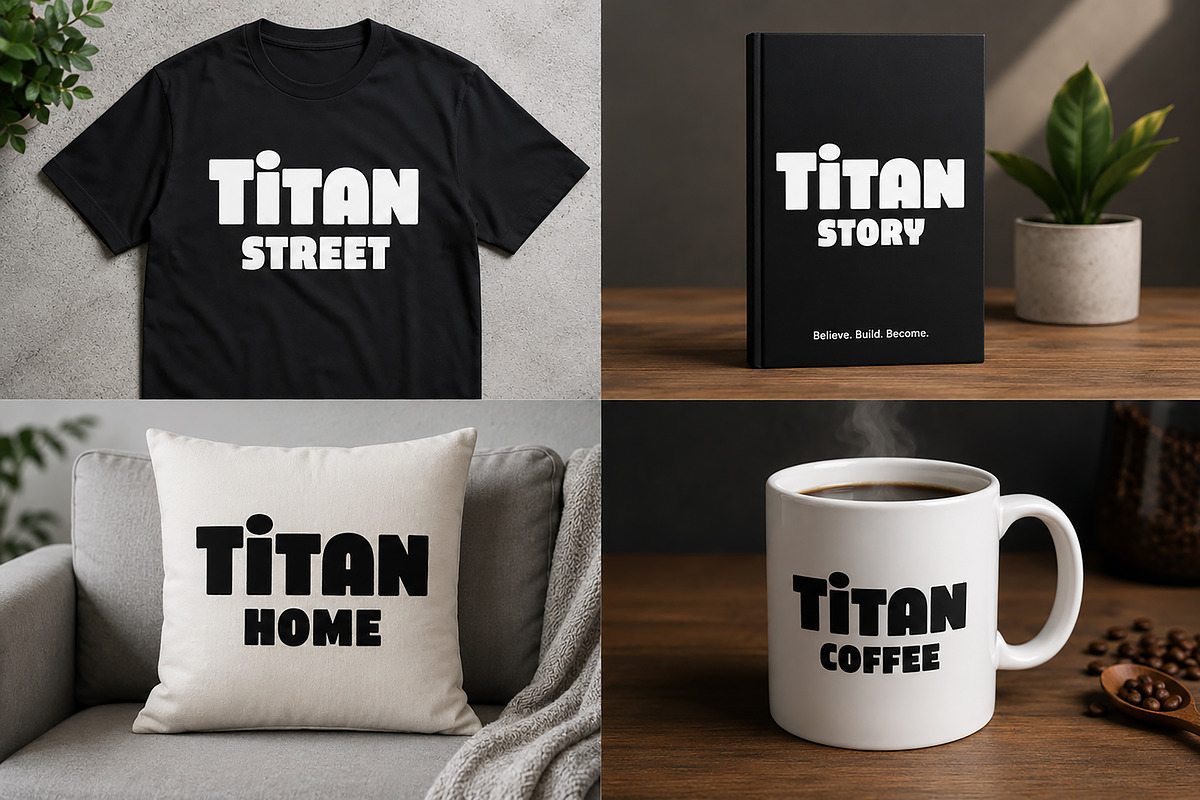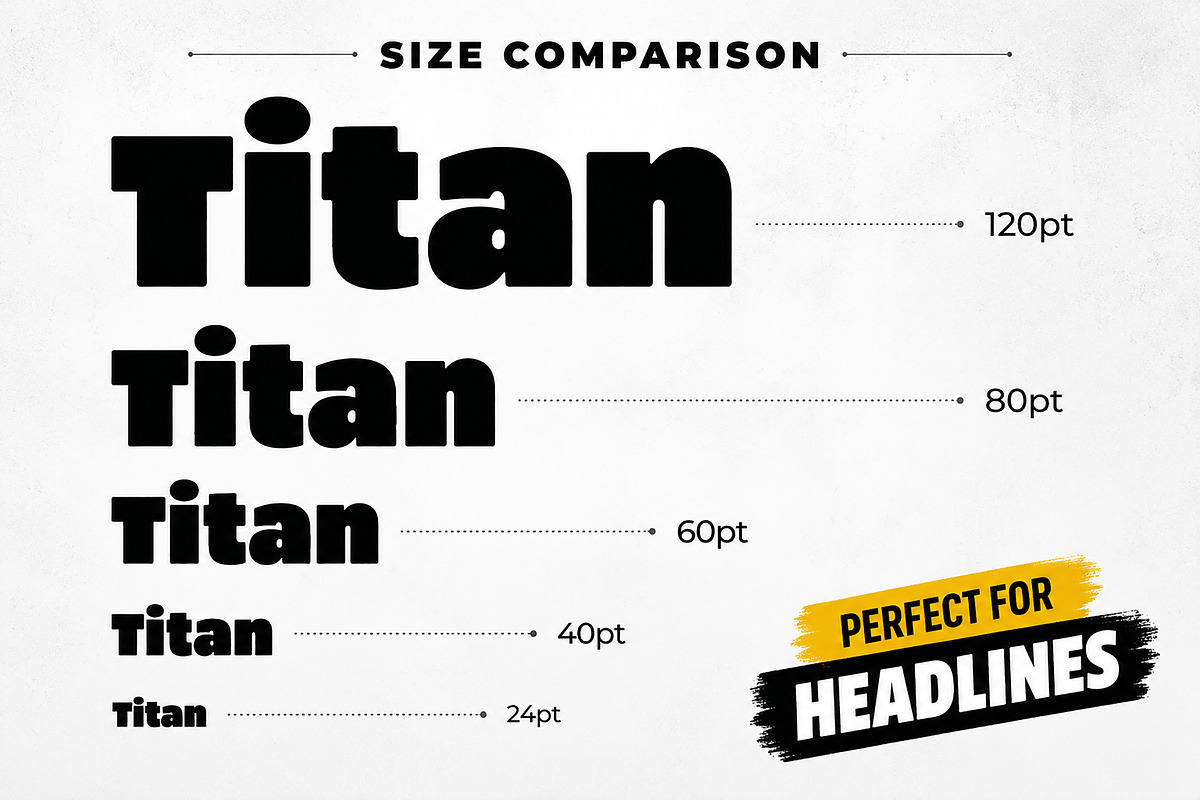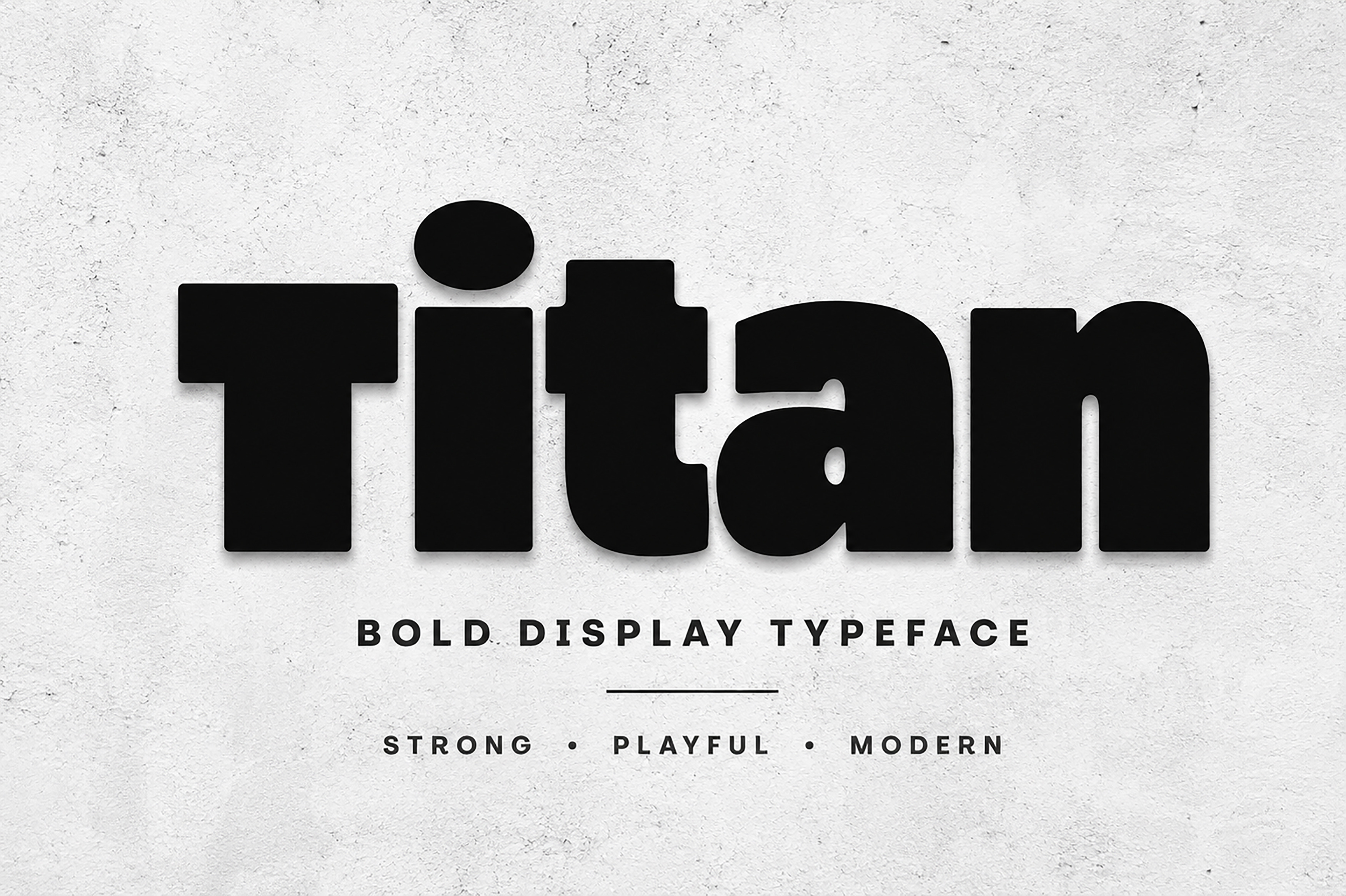
Titan – Bold Display Typeface
Titan is a bold and playful display typeface crafted to make your designs stand out with strong personality and impact. With its chunky shapes, smooth curves, and modern retro-inspired style, Titan is perfect for eye-catching headlines, branding, packaging, posters, kids products, streetwear, logos, and social media graphics.
Designed for creators who want a font that feels powerful, friendly, and fun, Titan brings energy and confidence to every project.
Whether you’re creating toy packaging, gaming titles, fashion branding, or bold marketing materials, Titan delivers a unique and memorable visual presence.
Logos
Branding
Posters
Headlines
T-shirt Designs
Kids Products
Toy Packaging
Streetwear Branding
Gaming Designs
Why Choose Titan?
✔ Bold & Strong Character
✔ Playful Modern Style
✔ High Readability
✔ Great for Large Display Use
✔ Versatile for Multiple Industries